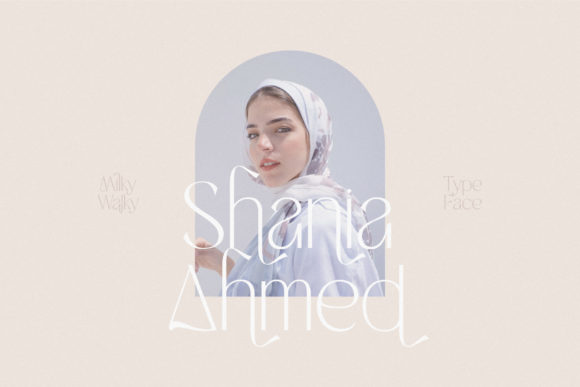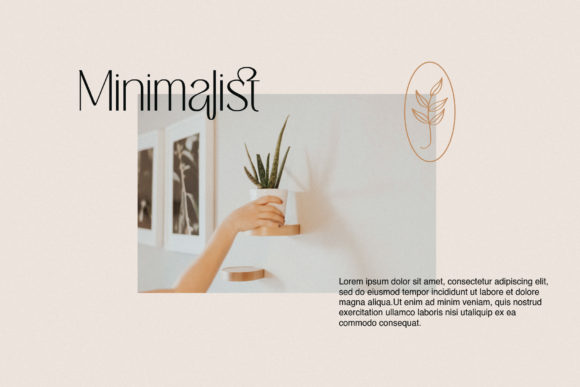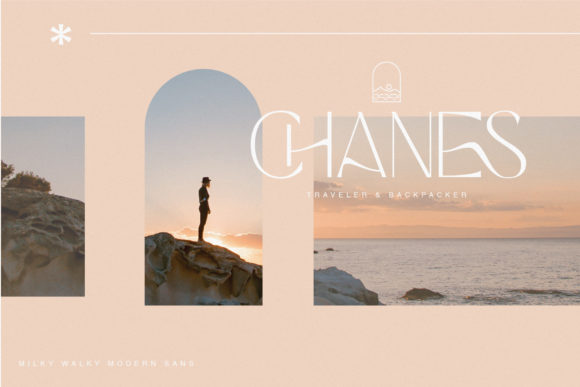
Introduction to Milky Walky Font
Milky Walky is a modern and elegant sans serif font.
It is defined by smooth curves and is perfect for fashion branding or editorial designs Add it confidently to your projects, and you will love the results.
Key Features of Milky Walky Font
Why Choose Milky Walky Font?